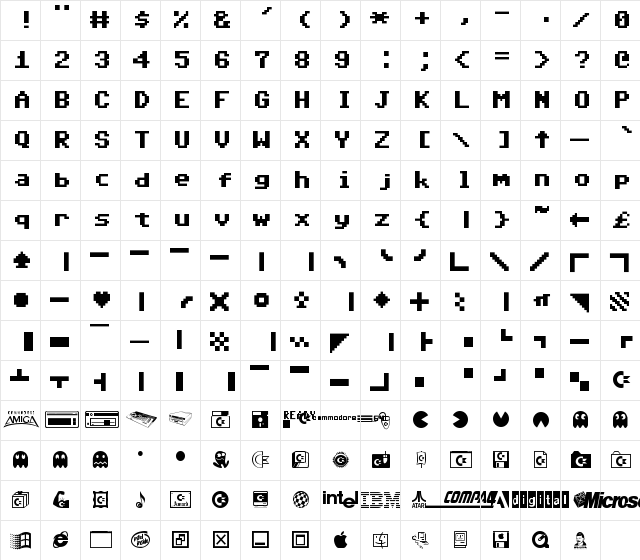
Commodore 64 Regular
Design Context for Commodore 64 Typeface
Commodore 64 is a composed and adaptable typeface that performs quietly and consistently across a wide range of design contexts.